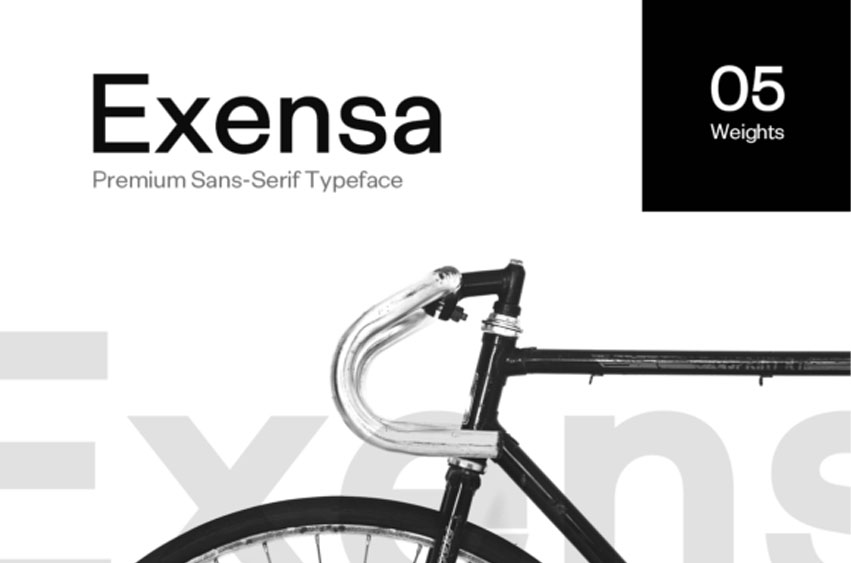
Exensa Grotesk Family Font
Exensa Grotesk Family Font is an authentic sans serif typeface inspired by Swiss Design and some of world’s most elegant typefaces that keep the expressive nature of a premium font at it’s level best. It comes with 5 weights; regular, black, bold, light, and extra bold.
It’s perfect to create nicely looking headlines as well as page content.